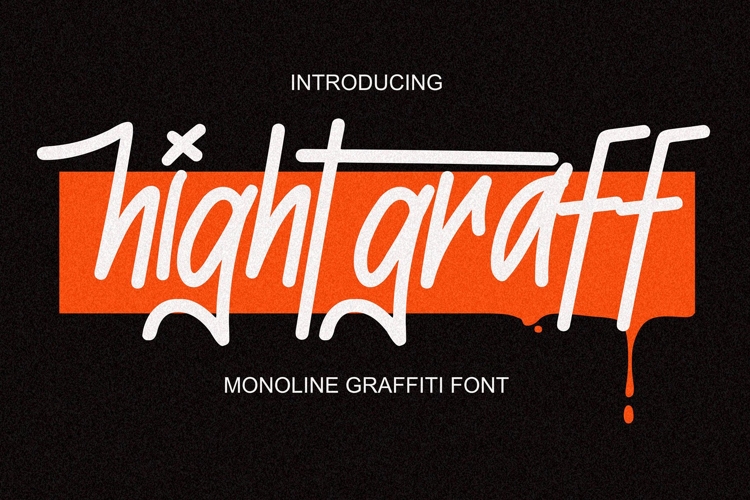
Hightgraff - Monoline Graffiti Font
Get ready to elevate your designs with Hightgraff – the monoline graffiti font that merges sleek sophistication with urban edge. More than just a font, Hightgraff is a versatile tool for crafting bold and stylish graffiti-inspired designs that capture attention and leave a lasting impression.
🏙️ Urban Sophistication: Hightgraff boasts clean lines and balanced proportions, exuding an understated elegance that stands out in the bustling cityscape. Each letter is meticulously crafted to maintain legibility while adding a touch of urban flair to your designs.
🎨 Graffiti Edge: Despite its refined appearance, Hightgraff retains a hint of rebelliousness synonymous with graffiti culture. Its monoline style infuses a modern twist into traditional graffiti lettering, making it the perfect choice for projects seeking a blend of style and street cred.
🔥 Versatile Creativity: From street art murals to digital designs, Hightgraff adapts effortlessly to any medium. Its timeless design ensures consistency across various applications, allowing your message to shine whether on print or screen.
🌟 Youthful Appeal: Embrace the spirit of urban culture with Hightgraff. Its sleek and stylish aesthetic resonates with young, creative audiences, making it an ideal choice for projects aimed at capturing the essence of contemporary street art.
💡 Endless Possibilities: With Hightgraff, your creativity knows no bounds. Whether crafting logos, posters, or social media graphics, this font provides the flexibility to express yourself with confidence and flair, ensuring your designs stand out from the crowd.
🌆 Cityscape Inspiration: Inspired by the dynamic energy of city life, Hightgraff brings a metropolitan vibe to your typography. Its clean and modern style mirrors the hustle and bustle of urban landscapes, injecting an authentic street vibe into your projects.
Elevate your designs to new heights with Hightgraff – where sophistication meets graffiti, and every stroke tells a story. It's time to make your mark with this best-selling monoline graffiti font leading the way.